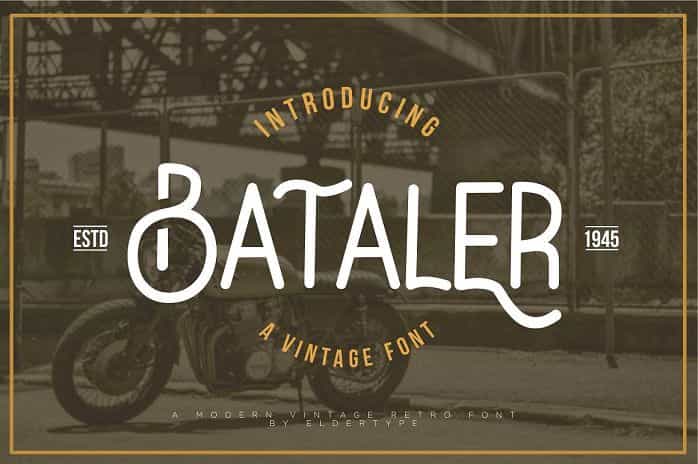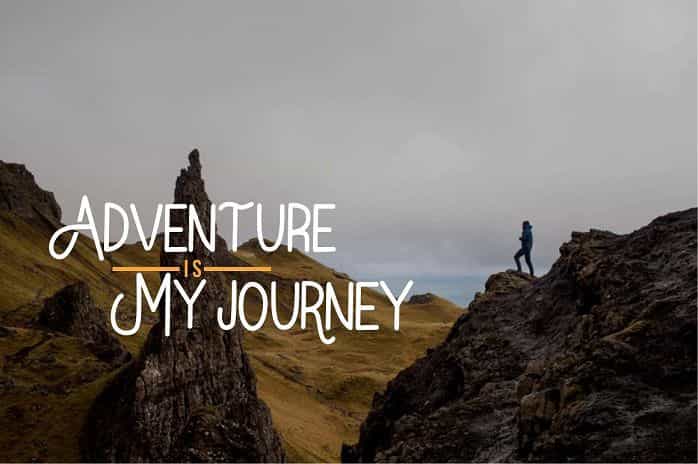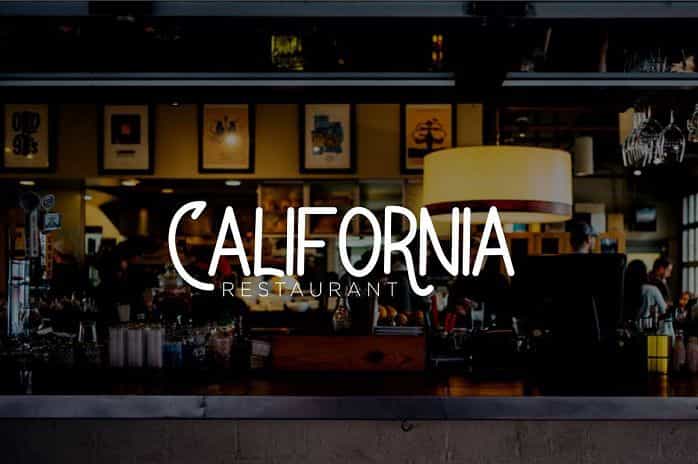
Introducing Bataler Vintage Font. Bataler Typeface is a vintage retro font that has an elegant and professional look, just right for bringing some romance and charm to your designs. This script works best as a font for display or headline. for logo, logotype, branding,wedding, fashion, label , book cover t-shirt and instagram post.